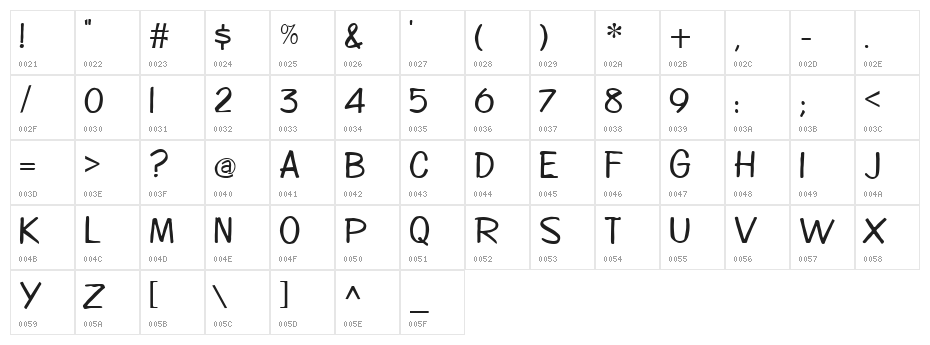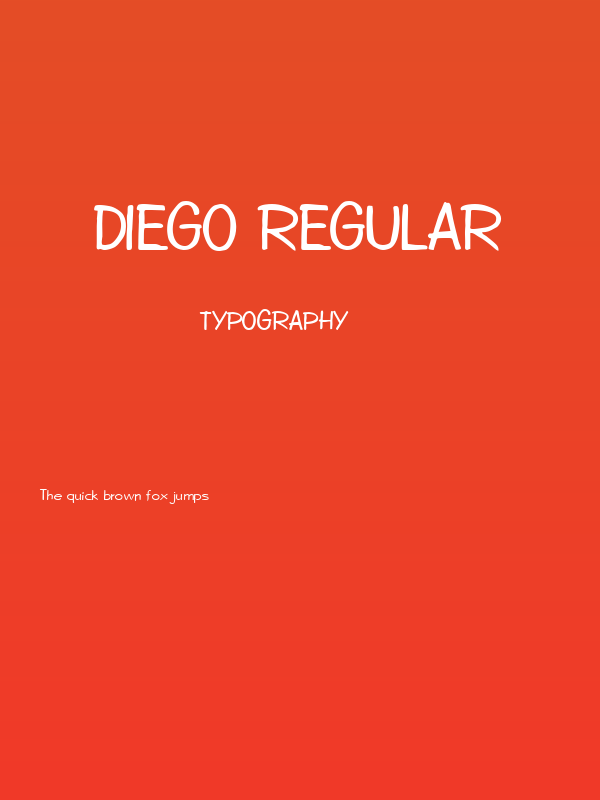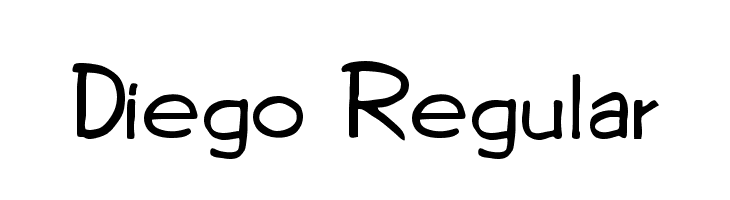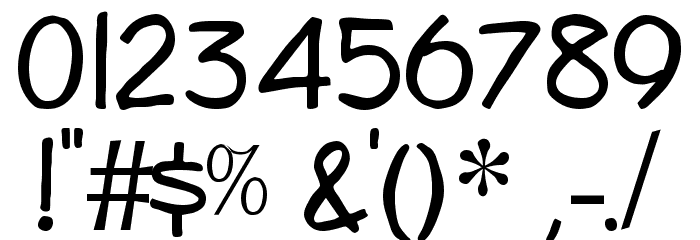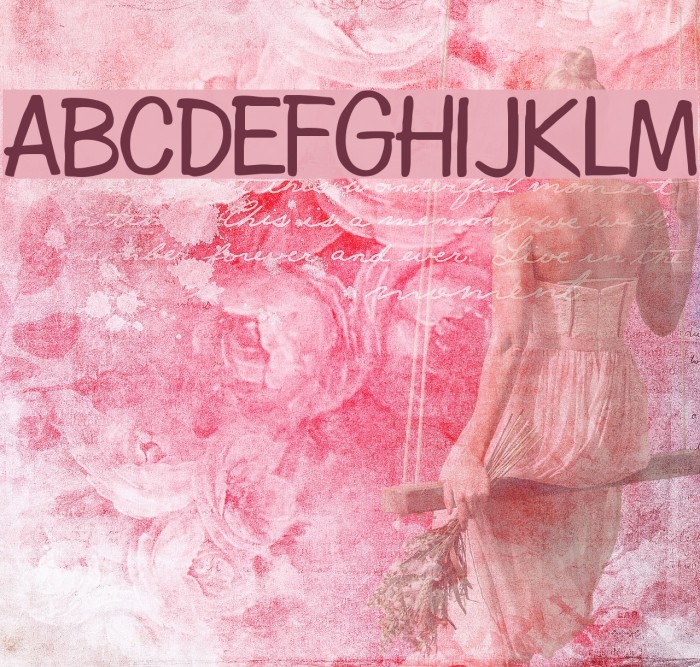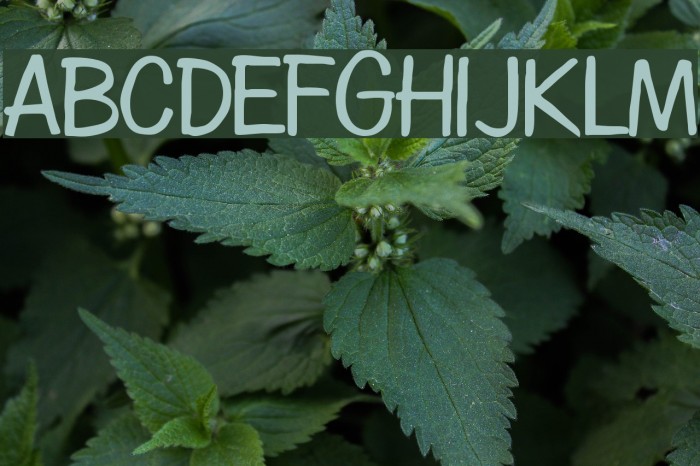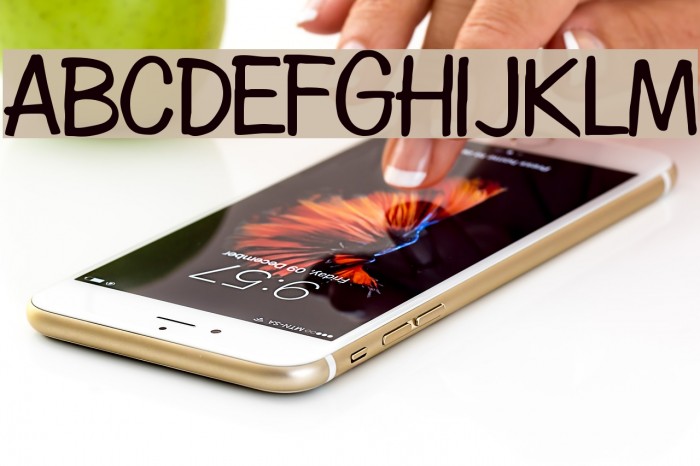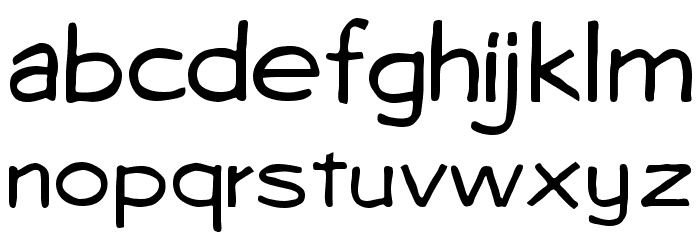
Diego Regular Font
Diego Regular Description
This font features a playful and informal style with rounded edges and a hand-drawn appearance. The characters are slightly irregular, giving it a casual and friendly look. The uppercase letters are bold and prominent, while the lowercase letters maintain a consistent flow with a slightly whimsical touch. Numbers and special characters follow the same playful design, making the font versatile for various creative projects. The overall appearance is approachable and fun, suitable for designs that aim to convey warmth and friendliness.
| Overall Style | Casual, Playful |
| Use Case | Headlines, Logos, Informal Text |
| Proposed Projects | Ideal for children's books, greeting cards, playful branding, and casual invitations. |